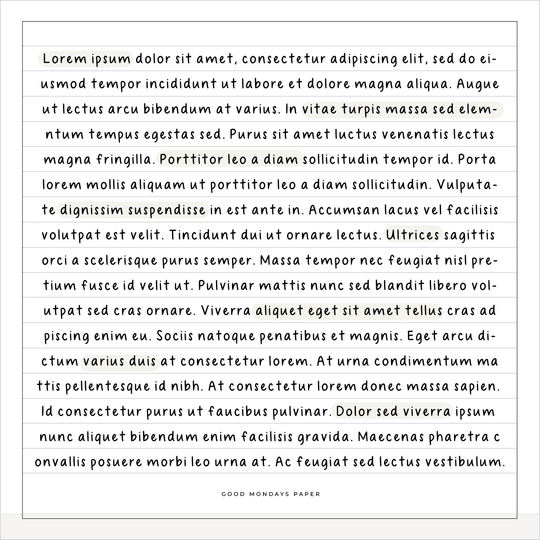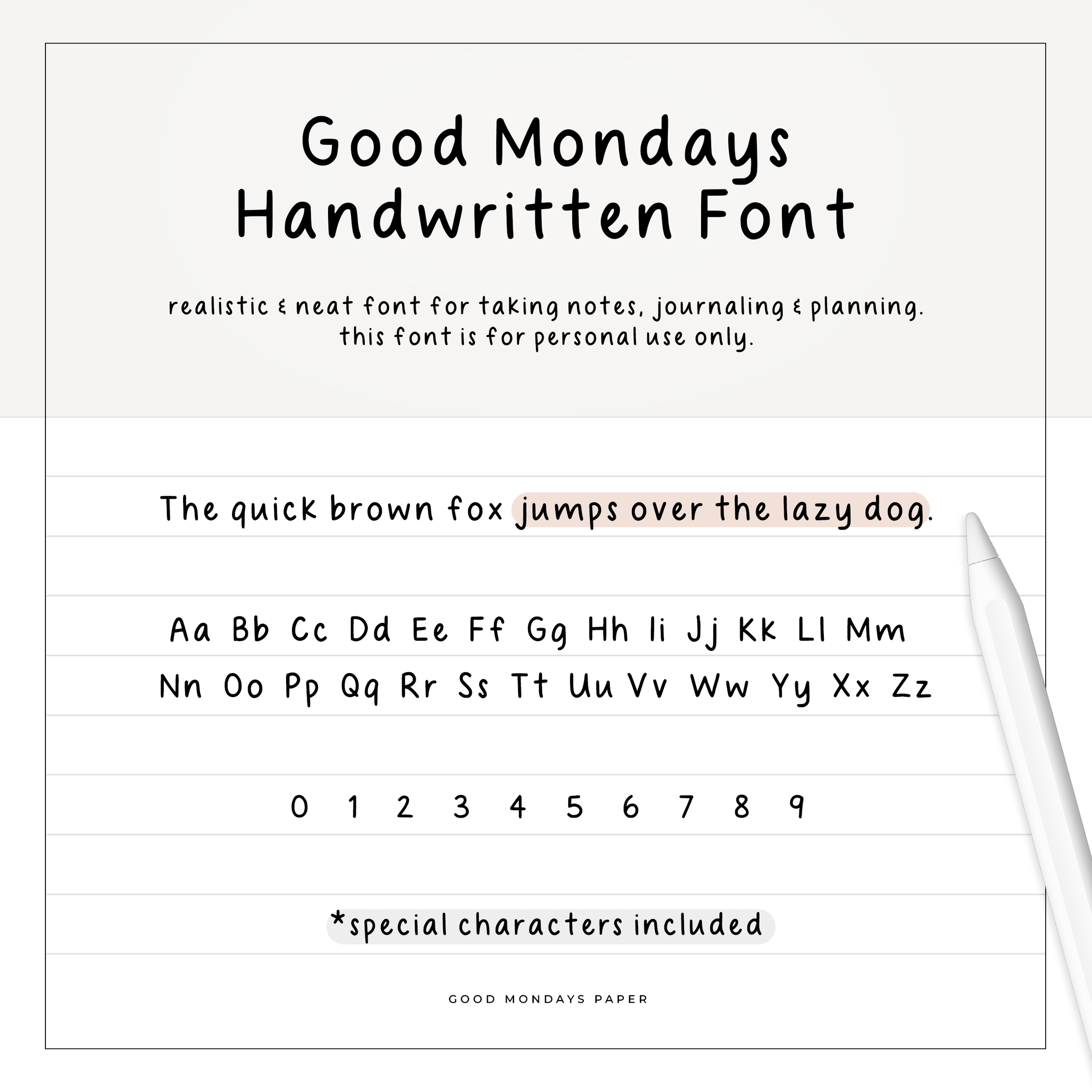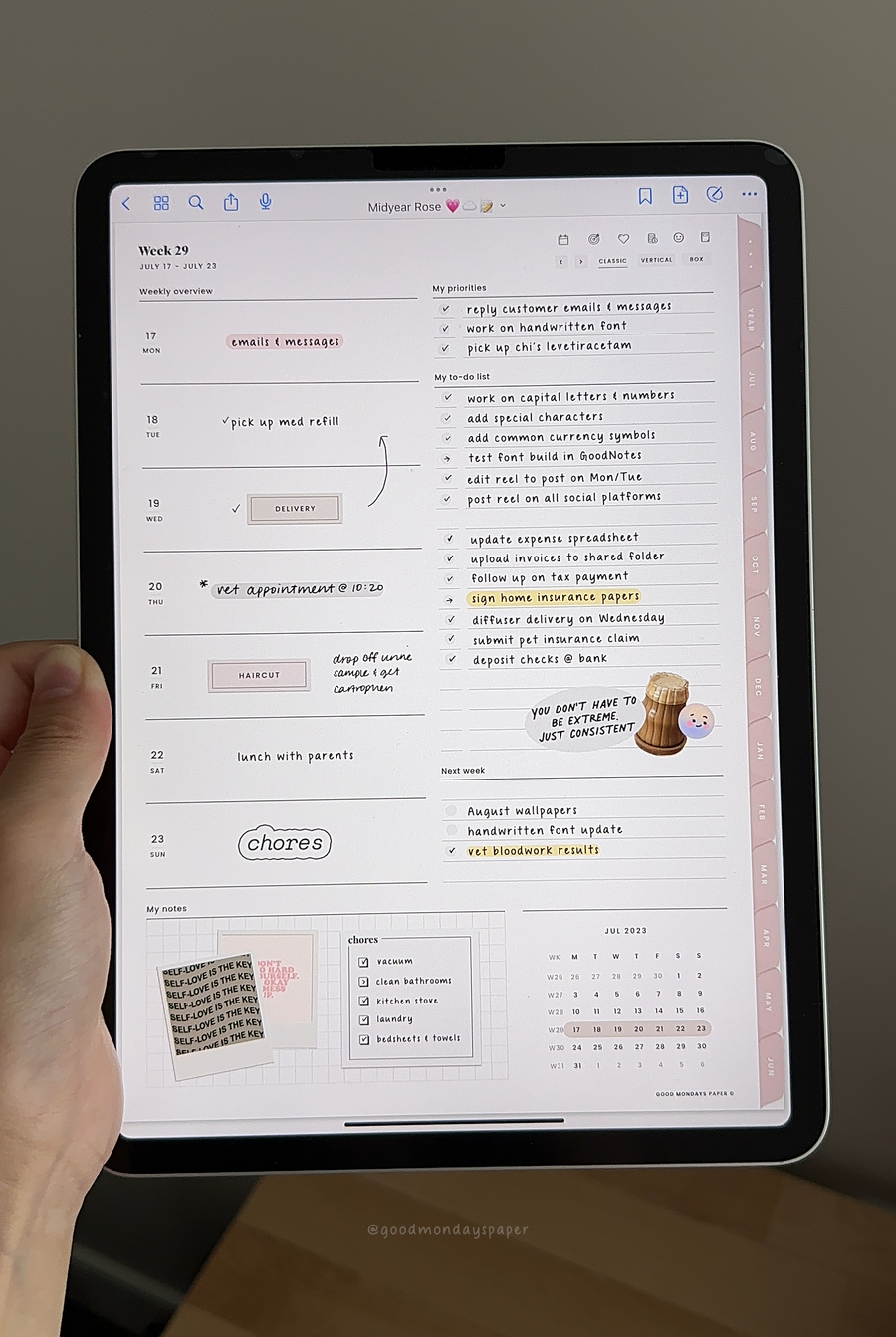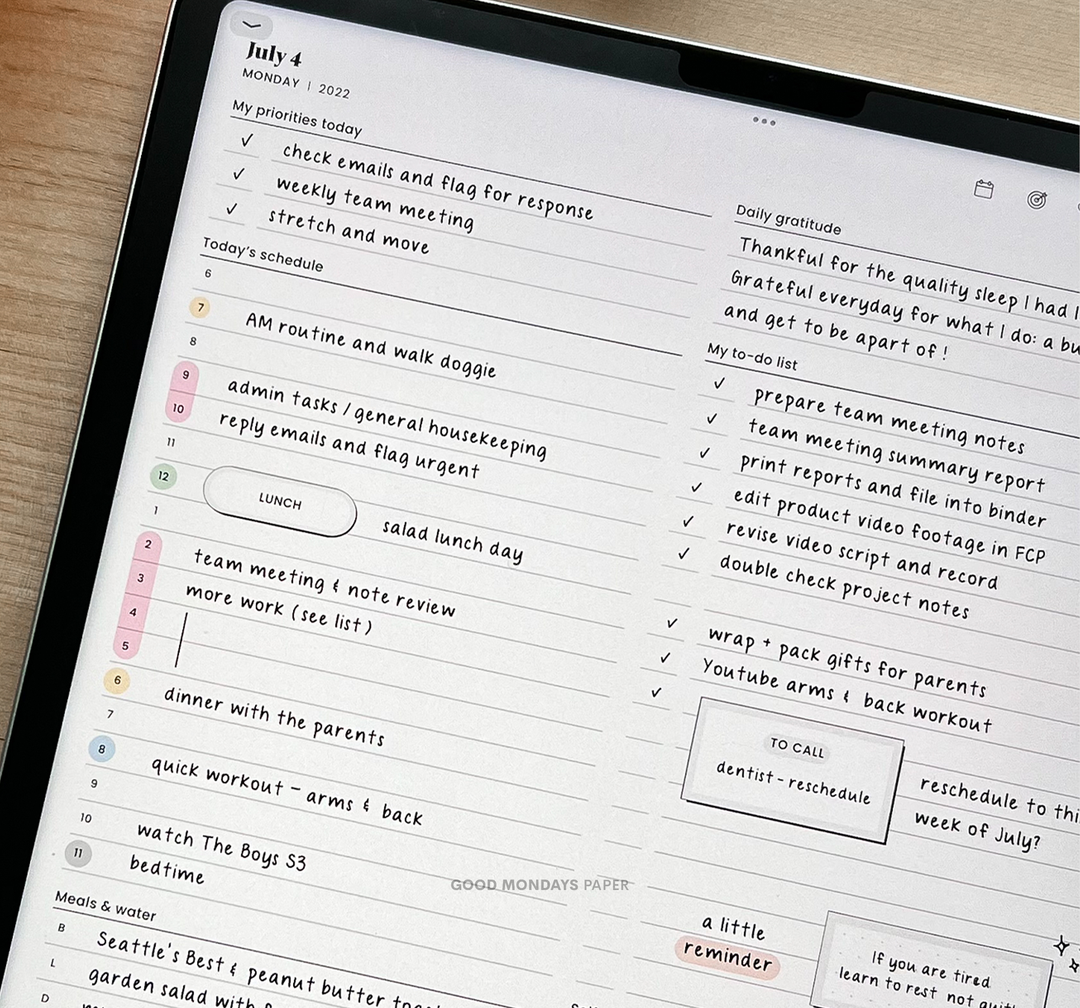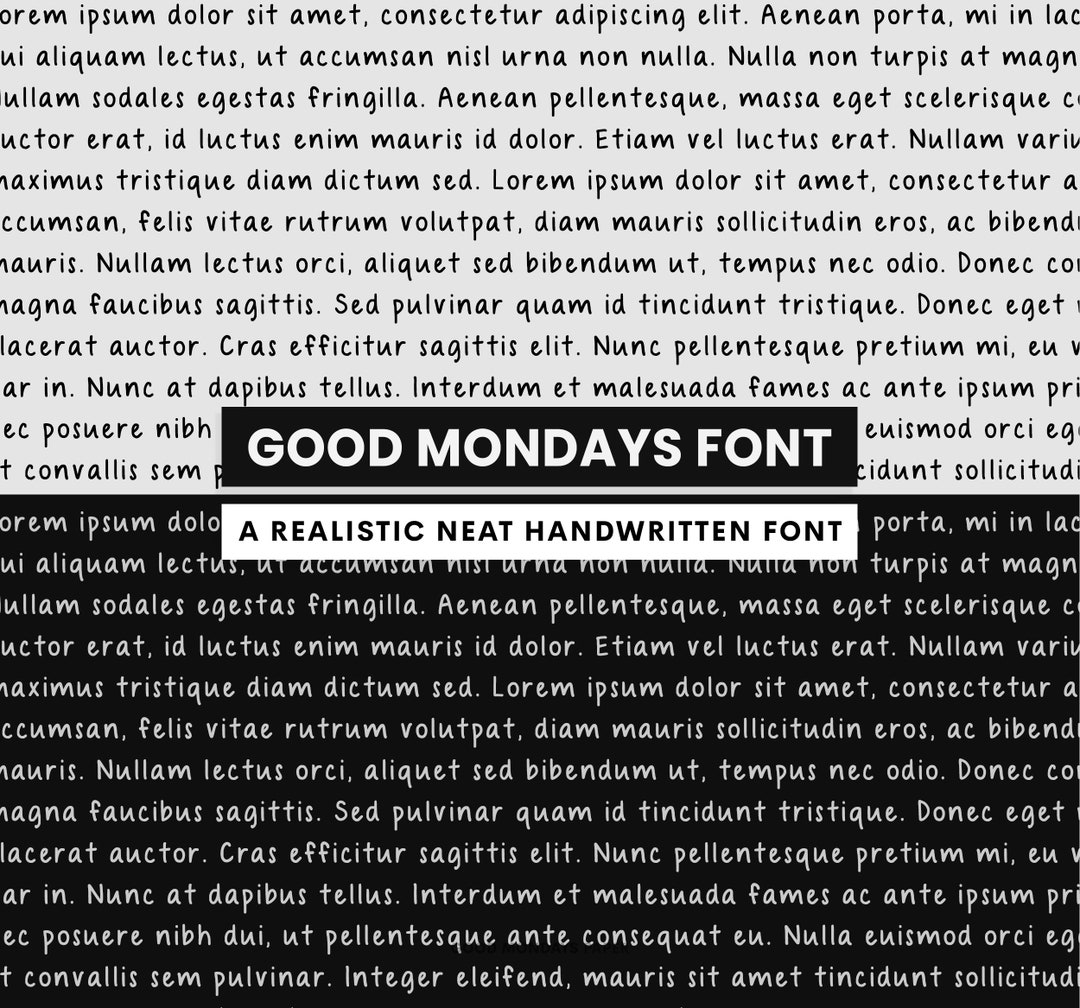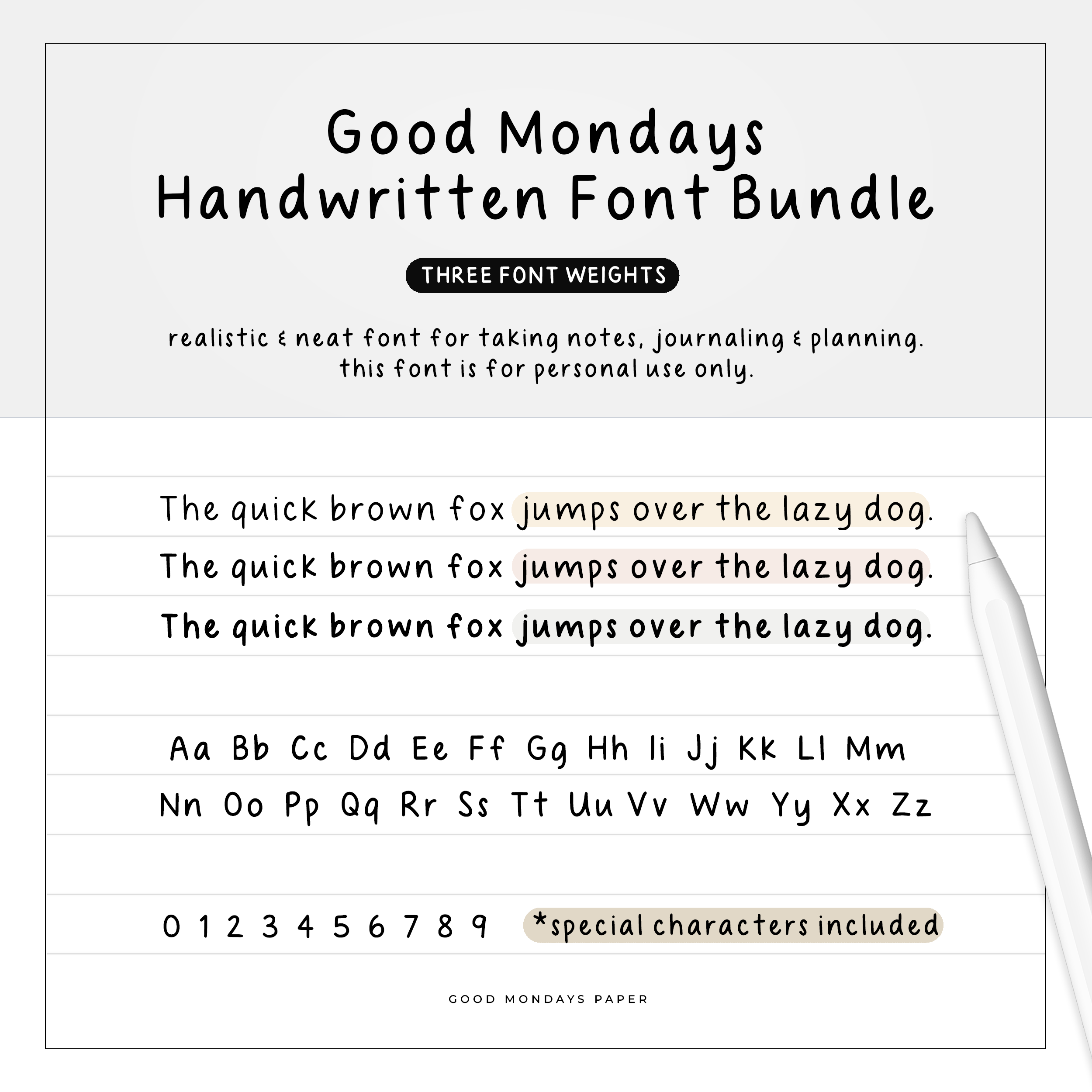
Good Mondays Handwritten Font
Good Mondays Handwritten Font - ️ recommended by goodnotes, seen in buzzfeed + forbes 👀. Good mondays handwritten font a neat handwritten font that still looks raw and real, as if you actually wrote the words. Check out our good mondays font selection for the very best in unique or custom, handmade pieces from our calendars & planners shops. Check out our good mondays handwritten font selection for the very best in unique or custom, handmade pieces from our planner templates.
Check out our good mondays handwritten font selection for the very best in unique or custom, handmade pieces from our planner templates. Good mondays handwritten font a neat handwritten font that still looks raw and real, as if you actually wrote the words. Check out our good mondays font selection for the very best in unique or custom, handmade pieces from our calendars & planners shops. ️ recommended by goodnotes, seen in buzzfeed + forbes 👀.
Check out our good mondays font selection for the very best in unique or custom, handmade pieces from our calendars & planners shops. ️ recommended by goodnotes, seen in buzzfeed + forbes 👀. Check out our good mondays handwritten font selection for the very best in unique or custom, handmade pieces from our planner templates. Good mondays handwritten font a neat handwritten font that still looks raw and real, as if you actually wrote the words.
Good Mondays Handwritten Font Good Mondays Paper
️ recommended by goodnotes, seen in buzzfeed + forbes 👀. Check out our good mondays handwritten font selection for the very best in unique or custom, handmade pieces from our planner templates. Check out our good mondays font selection for the very best in unique or custom, handmade pieces from our calendars & planners shops. Good mondays handwritten font a.
Good Mondays Handwritten Font Good Mondays Paper
Good mondays handwritten font a neat handwritten font that still looks raw and real, as if you actually wrote the words. Check out our good mondays font selection for the very best in unique or custom, handmade pieces from our calendars & planners shops. Check out our good mondays handwritten font selection for the very best in unique or custom,.
Good Mondays Handwritten Font Good Mondays Paper
Check out our good mondays font selection for the very best in unique or custom, handmade pieces from our calendars & planners shops. Good mondays handwritten font a neat handwritten font that still looks raw and real, as if you actually wrote the words. ️ recommended by goodnotes, seen in buzzfeed + forbes 👀. Check out our good mondays handwritten.
Good Mondays Handwritten Font Good Mondays Paper
Check out our good mondays font selection for the very best in unique or custom, handmade pieces from our calendars & planners shops. Good mondays handwritten font a neat handwritten font that still looks raw and real, as if you actually wrote the words. Check out our good mondays handwritten font selection for the very best in unique or custom,.
Good Mondays Handwritten Font Bundle Good Mondays Paper
️ recommended by goodnotes, seen in buzzfeed + forbes 👀. Check out our good mondays handwritten font selection for the very best in unique or custom, handmade pieces from our planner templates. Good mondays handwritten font a neat handwritten font that still looks raw and real, as if you actually wrote the words. Check out our good mondays font selection.
Good Mondays Handwritten Font Good Mondays Paper
Check out our good mondays font selection for the very best in unique or custom, handmade pieces from our calendars & planners shops. ️ recommended by goodnotes, seen in buzzfeed + forbes 👀. Check out our good mondays handwritten font selection for the very best in unique or custom, handmade pieces from our planner templates. Good mondays handwritten font a.
Good Mondays Handwritten Font Good Mondays Paper
Check out our good mondays font selection for the very best in unique or custom, handmade pieces from our calendars & planners shops. ️ recommended by goodnotes, seen in buzzfeed + forbes 👀. Check out our good mondays handwritten font selection for the very best in unique or custom, handmade pieces from our planner templates. Good mondays handwritten font a.
Neat Handwritten Font by Good Mondays Paper Handwriting Font Etsy
️ recommended by goodnotes, seen in buzzfeed + forbes 👀. Good mondays handwritten font a neat handwritten font that still looks raw and real, as if you actually wrote the words. Check out our good mondays handwritten font selection for the very best in unique or custom, handmade pieces from our planner templates. Check out our good mondays font selection.
Good Mondays Handwritten Font Bundle Good Mondays Paper
️ recommended by goodnotes, seen in buzzfeed + forbes 👀. Check out our good mondays font selection for the very best in unique or custom, handmade pieces from our calendars & planners shops. Check out our good mondays handwritten font selection for the very best in unique or custom, handmade pieces from our planner templates. Good mondays handwritten font a.
Check out our good mondays handwritten font selection for the very best in unique or custom, handmade pieces from our planner templates. Good mondays handwritten font a neat handwritten font that still looks raw and real, as if you actually wrote the words. ️ recommended by goodnotes, seen in buzzfeed + forbes 👀.